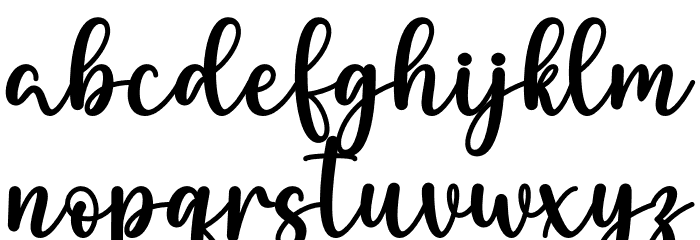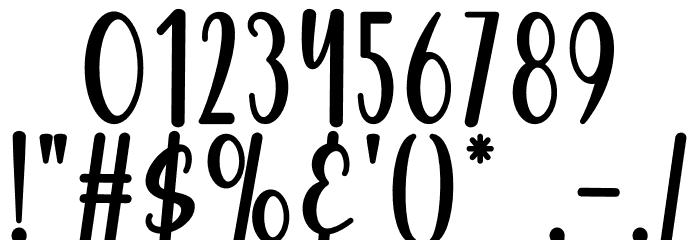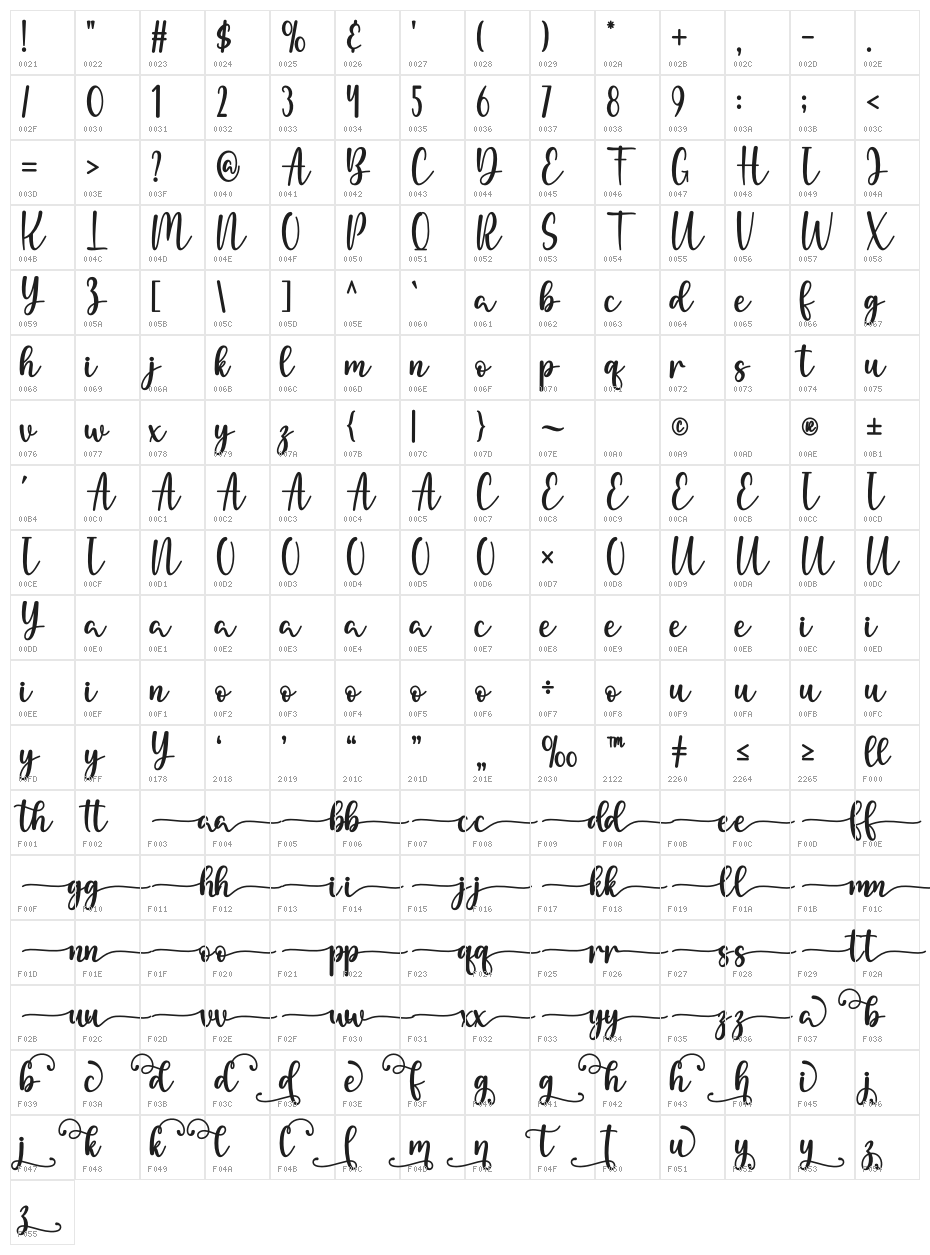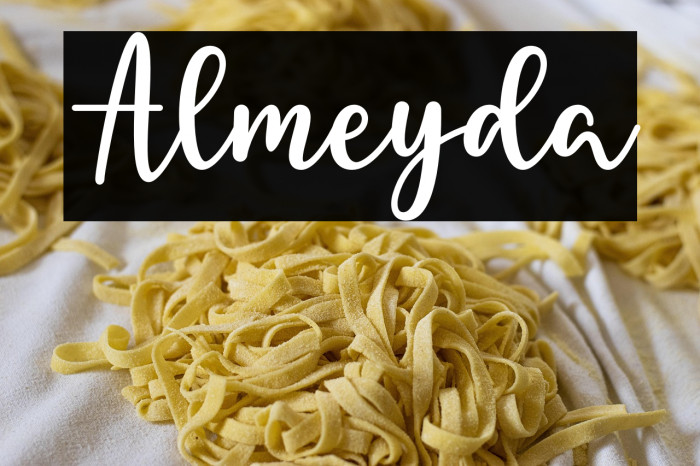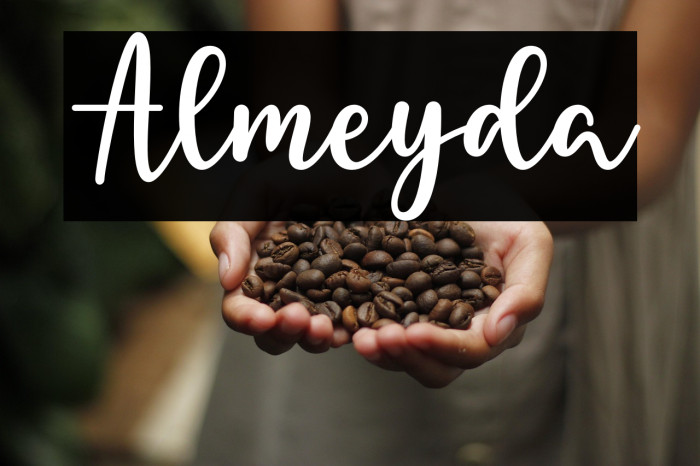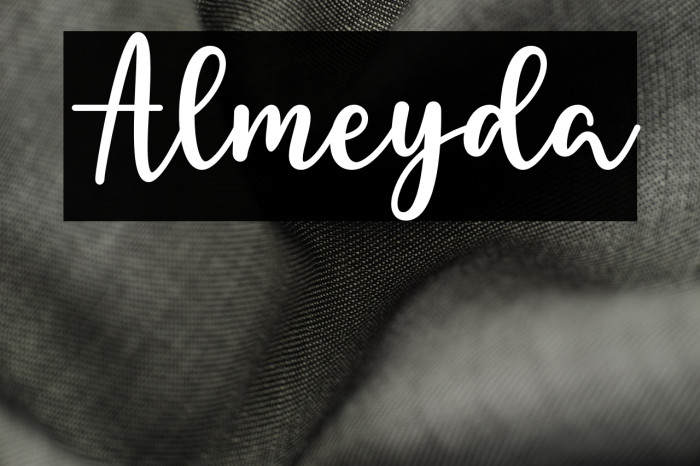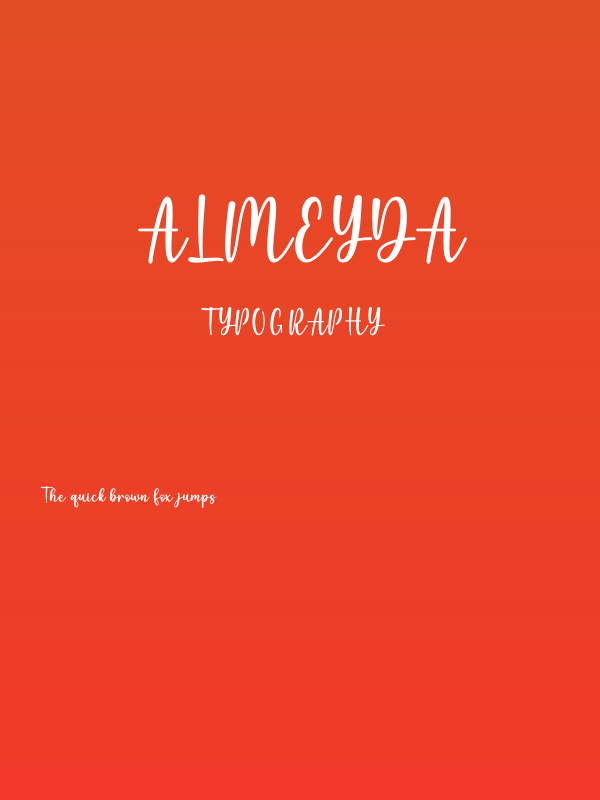
Almeyda Font
This font features a lively and flowing script style, characterized by its smooth, cursive letterforms that convey a sense of elegance and playfulness. The uppercase letters are tall and slightly narrow, with distinctive loops and swirls that add a decorative touch. The lowercase letters maintain a consistent flow, enhancing readability while preserving the font's artistic flair. Numbers are bold and slightly elongated, complementing the overall design. Special characters are creatively integrated, maintaining the font's cohesive style. This font is ideal for projects that require a personal and artistic touch, such as invitations, greeting cards, and branding materials.
A lively, flowing script font with elegant, cursive letterforms.
- Proposed Projects: Ideal for invitations, greeting cards, branding, and artistic projects.
- Category: Script
- Use Case: Headlines, Logos, Artistic projects